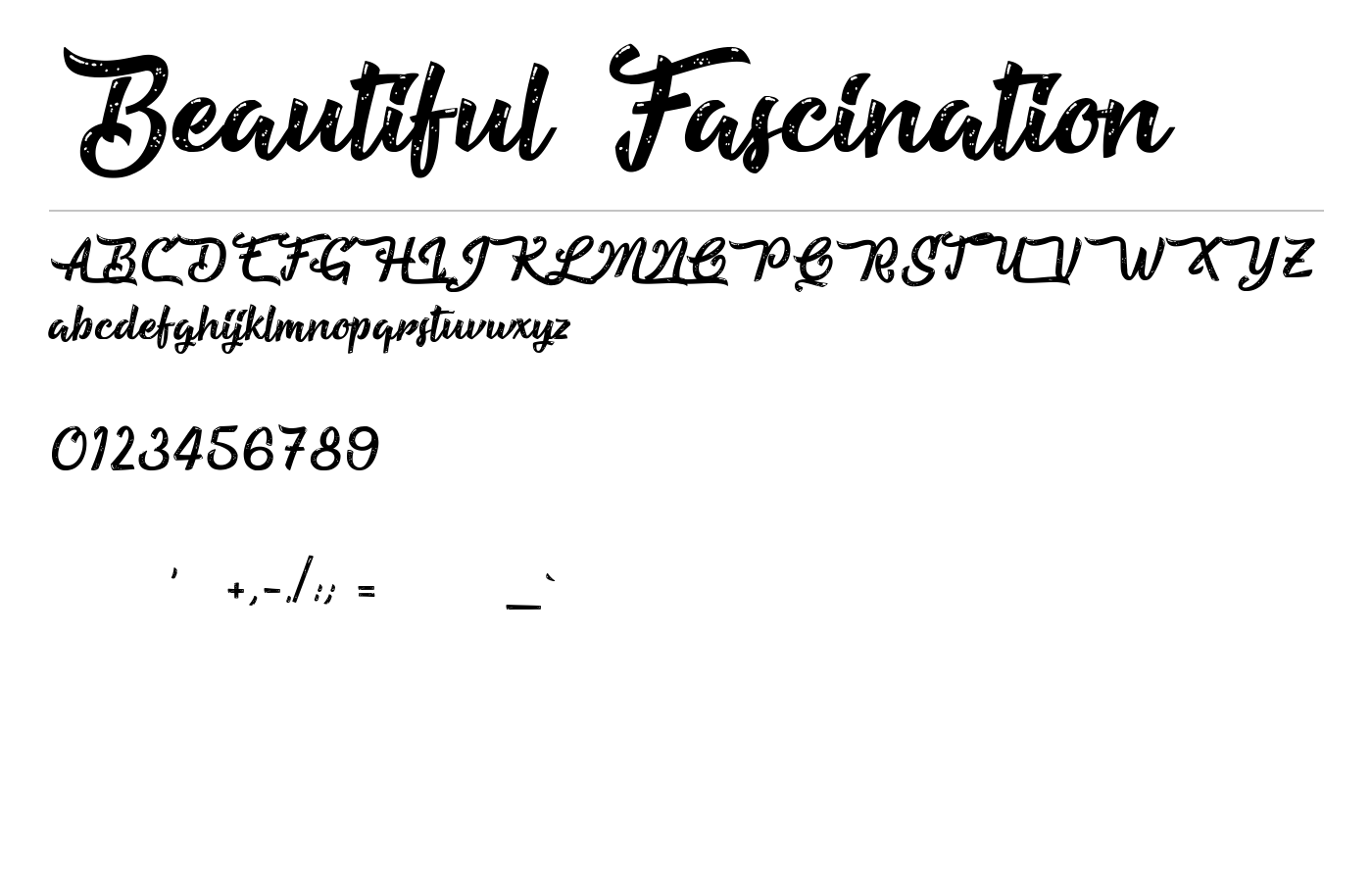
Beautiful Fascination is a bold, script-style font with a playful, hand-painted feel characterized by its brush stroke texture and smooth, flowing curves. It features a casual yet elegant style, making it perfect for creative branding, invitations, or headlines that want to convey warmth and personality. This font works well in projects where a lively, artistic touch is needed to capture attention and evoke a sense of charm and creativity.
Beautiful Fascination Font
About Beautiful Fascination Font